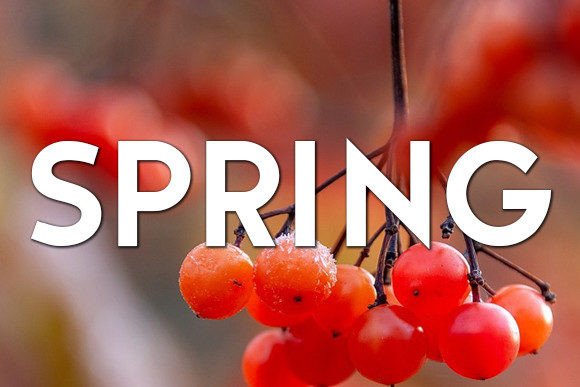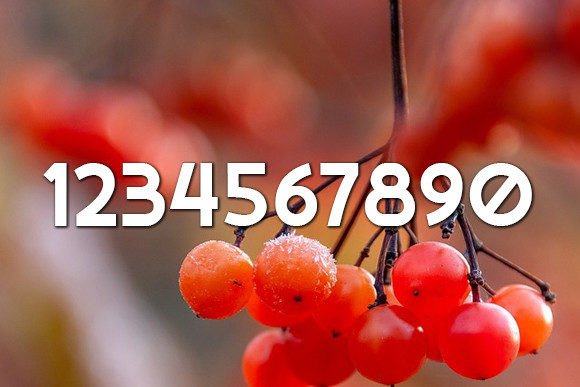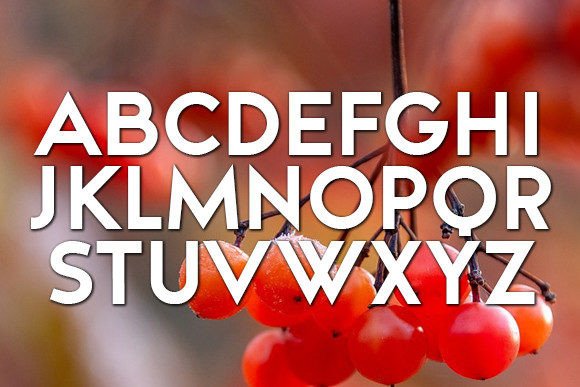
Introduction to Roseberry Font
Have you ever been in the middle of a creative project, staring at your computer screen, searching for the perfect font to bring your idea to life? It’s a frustrating feeling, knowing that the right font could make all the difference between a mediocre design and a stunning one. That’s where the Roseberry Font comes in – a cool and unique sans serif font that’s about to become your new go-to design resource.
With its sleek and modern look, the Roseberry Font is perfect for any design project that requires a touch of sophistication. Whether you’re creating posters, flyers, or prints, this font is sure to make your design stand out from the crowd. Plus, its high quality and versatility make it a valuable addition to any designer’s toolkit.
Key Features of Roseberry Font
- High-quality, professional design perfect for creative projects and presentations.
- Comes with a transparent background, allowing for seamless integration into any design resource.
- Includes a range of glyphs and characters, making it suitable for a variety of design applications.
- Designed with a high resolution, ensuring crisp and clear text output.
Honest Review: Roseberry Font
As a designer, I’ve come across numerous fonts, but the Roseberry Font caught my eye. I was eager to dive in and see if it’s a valuable addition to my design resource library.
Here are some of the things that work well for this font:
- ✨ Beautiful and elegant design, perfect for creative projects that require a touch of sophistication.
- ✨ High-quality font that looks great on various backgrounds, including transparent backgrounds.
- ✨ Great for use in branding, packaging, and other design applications where a clean and minimalist look is desired.
- ⚠️ Limited character set, which may be a problem for designers who need to use the font for extended periods of time.
- ⚠️ Not suitable for use in headings or titles, as it may get lost in the design.
Overall, I think the Roseberry Font is a great addition to any designer’s library, especially for free download. It’s perfect for projects where a touch of elegance is needed. However, it’s essential to be aware of its limitations and use it in the right context.